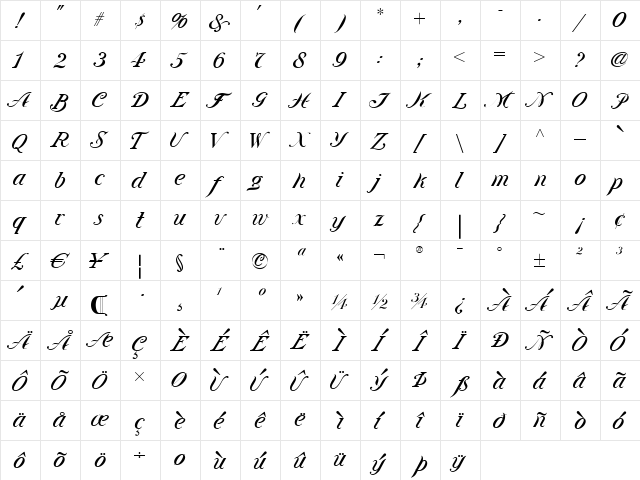
Union Telegraph NF Regular
Design Context for Union Telegraph NF Typeface
Union Telegraph NF is a composed and adaptable typeface that performs quietly and consistently across a wide range of design contexts.